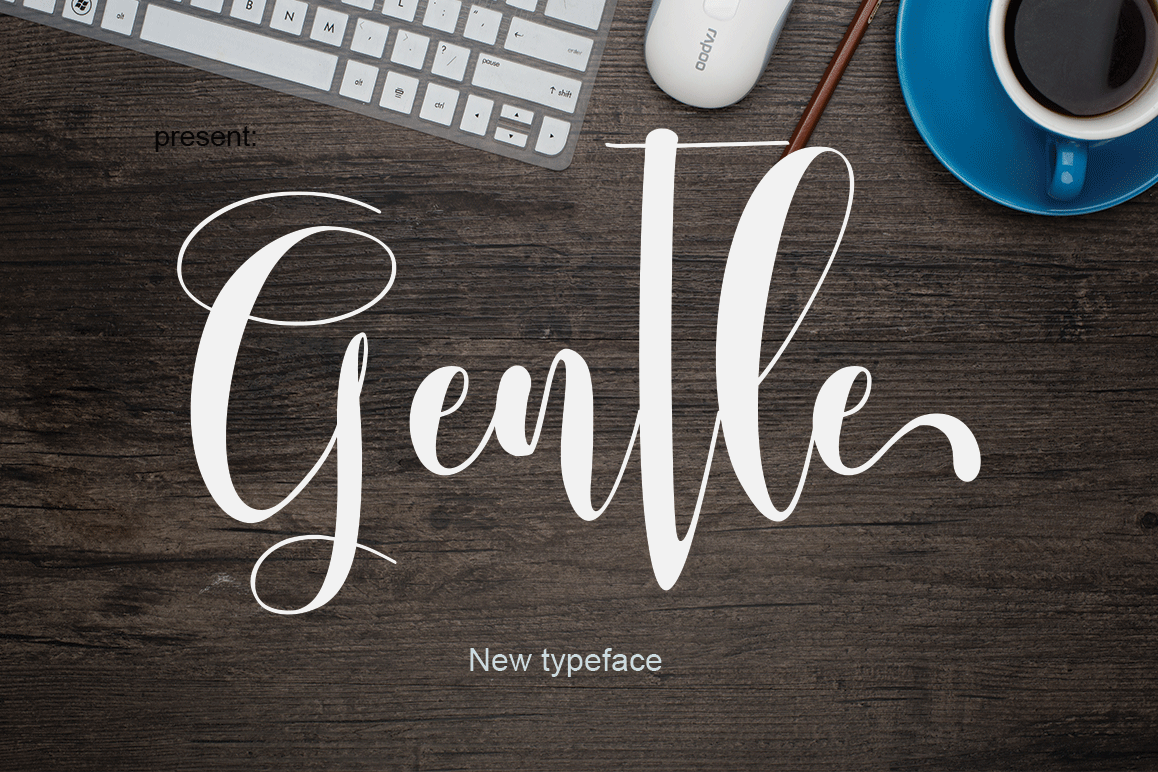
Gentle font is script font with deverent style make your job is looking deverent ,
gentle font will be interest who see this font , and can solve your needed of the font